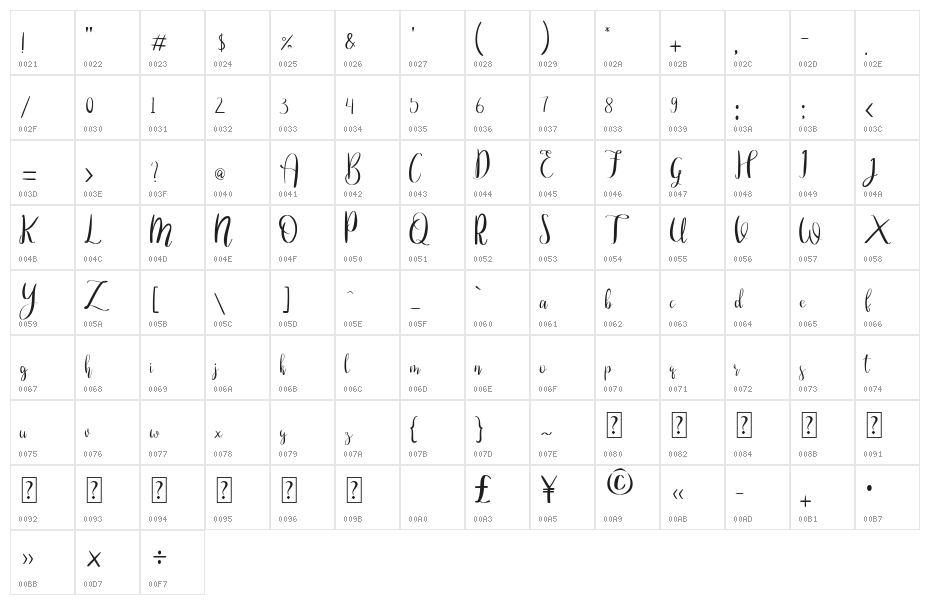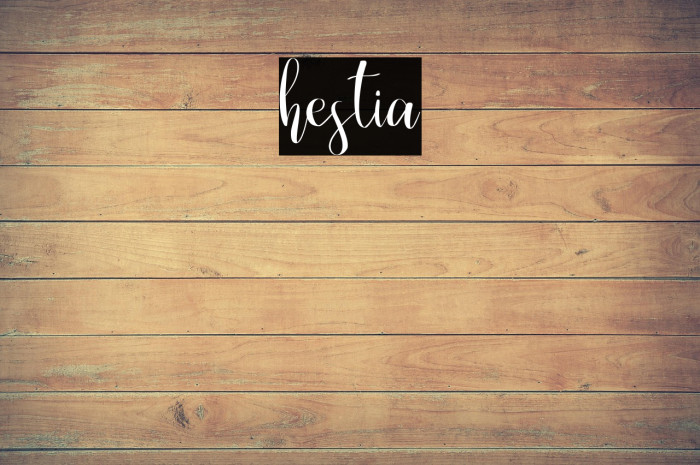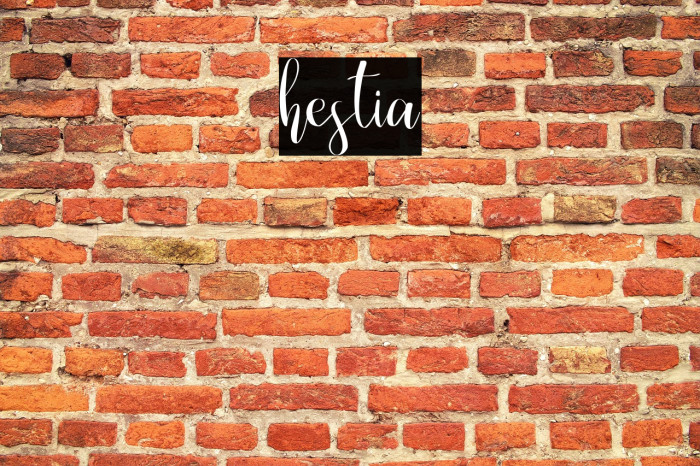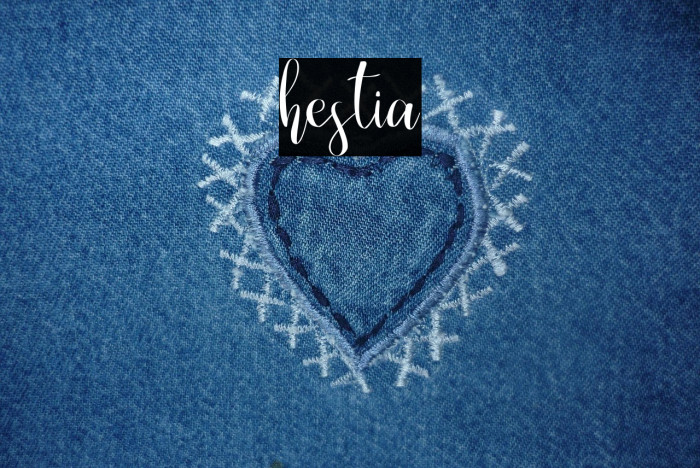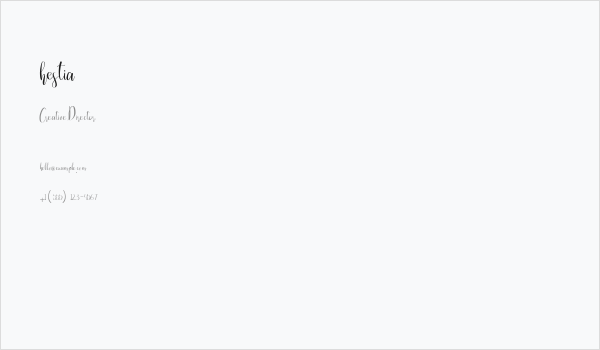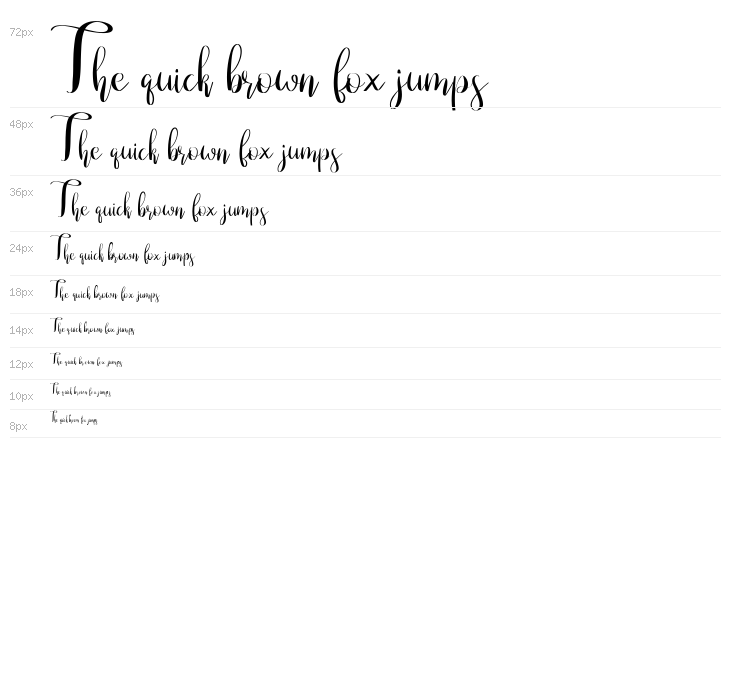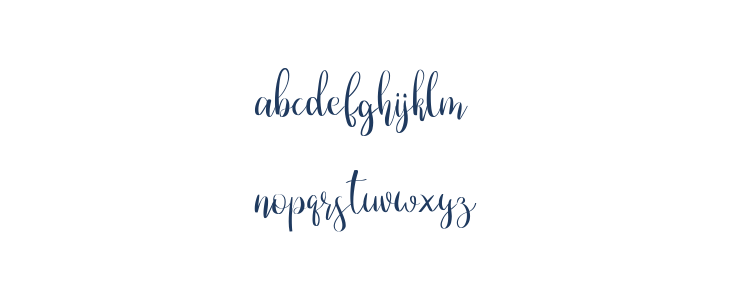
hestia Font
hestia Description
This font features a flowing, elegant script style with a modern twist. The uppercase letters are characterized by their dramatic flourishes and loops, creating a sense of movement and sophistication. The lowercase letters maintain a consistent style, with smooth curves and a delicate touch. The numerals are designed to complement the letters, with a slightly more restrained flair. Special characters are integrated seamlessly, maintaining the overall aesthetic. This font is ideal for projects that require a touch of elegance and personality, such as wedding invitations, branding, and high-end product packaging.
| Overall Style | Modern, Elegant |
| Proposed Projects | Wedding invitations, branding, high-end product packaging, elegant posters. |